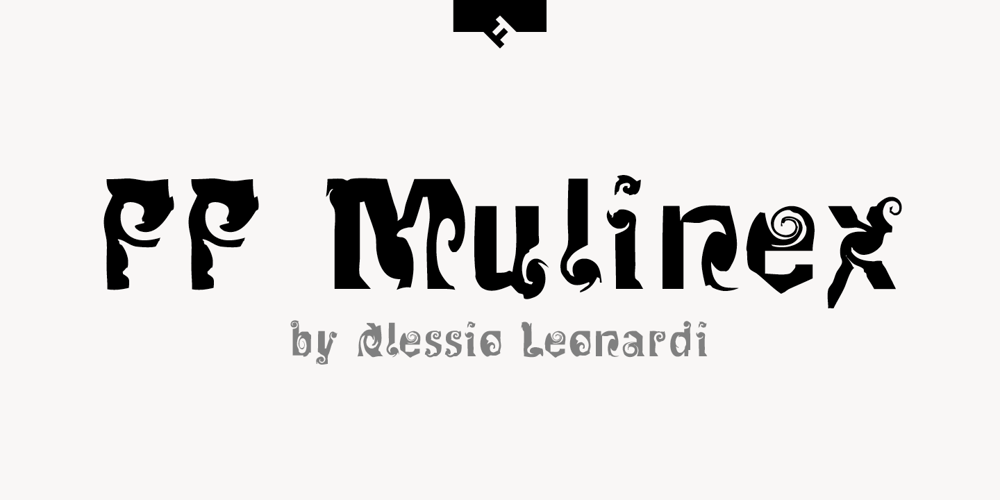
FF Mulinex Font Family was designed by Alessio Leonardi and published by FontFont. FF Mulinex contains 1 styles and family package options. Italian type designer Alessio Leonardi created this display FontFont in 1994. The font is ideally suited for music and nightlife. FF Mulinex provides advanced typographical support with features such as ligatures and case-sensitive forms. It comes with proportional lining figures.